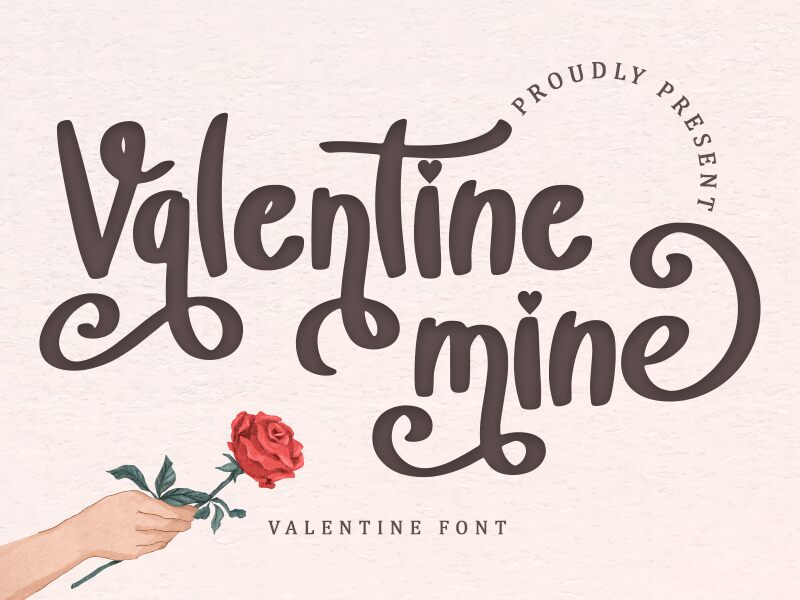
Valentine Mine is a charming semi-condensed handwritten font that will add a personal touch to any project. Designed by Alif Ryan Zulfikar, this font exudes warmth and friendliness, making it ideal for greeting cards, invitations, and social media posts. Its unique style also lends itself well to branding materials such as logos and packaging. Whether you're creating a whimsical children's book or an elegant wedding invitation, Valentine Mine is sure to leave a lasting impression. Bring your designs to life with the playful yet refined Valentine Mine font.